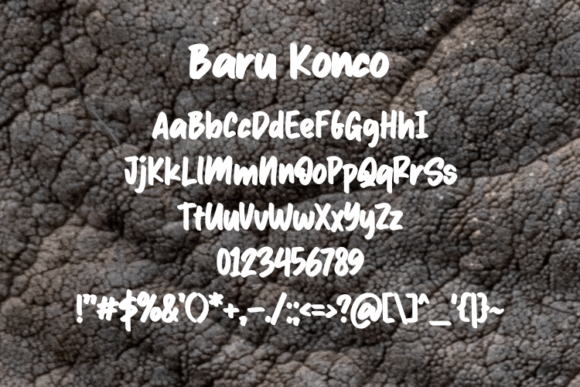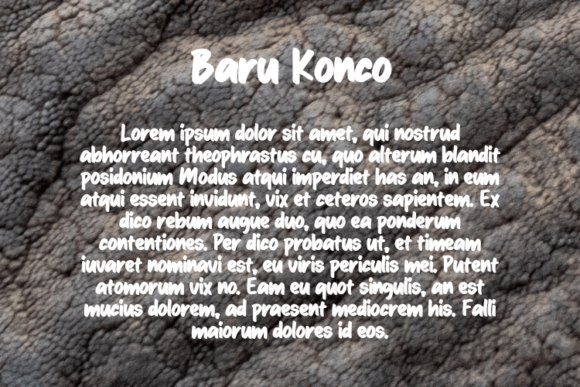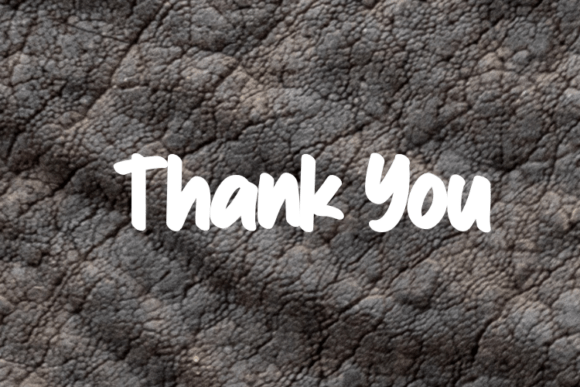
Introducing Baru Konco: The Ultimate Font for Vibrant Designs
In the world of design, the right font can make all the difference. Whether you’re crafting a stunning T-shirt, designing a logo, or creating engaging content, the typography you choose sets the tone for your entire project. This is where Baru Konco comes into play—a dynamic and versatile font designed to elevate your clothing designs, T-shirts, and a myriad of other creative projects. With its unique charm and adaptability, Baru Konco is poised to become your go-to font for bringing your imaginative visions to life.
The Versatility of Baru Konco
Baru Konco stands out in the realm of typography due to its incredible versatility. This font is not just another addition to your font library; it’s a game-changer. Its design is carefully crafted to ensure it can be used across a wide range of projects, from casual T-shirt designs to more formal apparel, and even in digital media. The adaptability of Baru Konco makes it a perfect match for any design project you’re working on. Whether you’re a professional designer or a DIY enthusiast, this font provides the flexibility you need to experiment with different styles and themes.
Unlocking Creative Potential
With Baru Konco, you have the foundational element to propel the aesthetic appeal of your designs to new heights. The font’s dynamic and vibrant nature encourages creativity and experimentation. You can use it to create eye-catching headlines, unique logos, or even intricate patterns. The OTF file provides the flexibility and functionality needed to turn your creative visions into reality. Whether you’re aiming for a modern look, a vintage feel, or something entirely new, Baru Konco adapts to your vision, ensuring your designs stand out.
Baru Konco is not just a font; it’s a tool for designers and crafters alike. For designers, it offers a fresh and exciting option for client projects, ensuring their work looks current and engaging. For crafters, especially those involved in making personalized T-shirts, mugs, and other items, Baru Konco provides a professional edge to their creations. Its unique style and versatility make it an excellent choice for anyone looking to add a personal touch to their projects.
Why Choose Baru Konco?
- Dynamic and Versatile: Suitable for a wide range of projects, from clothing designs to digital media.
- Creativity Unlocked: Encourages experimentation and can be used to create a variety of design elements.
- Perfect for Professionals and Hobbyists: Elevates the aesthetic appeal of designs for both designers and crafters.
Baru Konco is more than just a font—it’s a creative partner that helps bring your design visions to life. Its dynamic and versatile nature, combined with its compatibility and ease of use, makes it an invaluable addition to your design toolkit. Whether you’re a seasoned designer or a crafting enthusiast, Baru Konco has the potential to transform your projects, adding a touch of uniqueness and professionalism. So, why wait? Dive into the world of vibrant designs with Baru Konco and discover a new realm of creative possibilities.